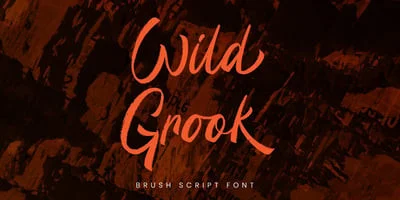
Wild Grook Font
Wild Grook Font is perfect for wilderness adventure branding, untamed nature documentaries, wild safari expedition marketing, primal outdoor gear advertising, savage beast-themed gaming interfaces, and raw survival challenge promotions. Its fierce character makes it ideal for extreme wilderness outfitters, wildlife photography studios, survival training schools, predator research organizations, and any application requiring untamed typography that conveys wild intensity, primal power, and the savage beauty of untouched wilderness environments.
Wild Grook Font is exciting because it unleashes the raw power and primal intensity of wild nature through aggressively crafted letterforms that capture the untamed ferocity and survival instincts found in Earth's most dangerous wilderness territories. Its savage proportions and beast-like details evoke the primitive strength required for wilderness survival and the respect-commanding presence of apex predators, making it perfect for brands seeking to convey authentic wildness and primal authenticity. The font's wild character transforms communications into territorial declarations of untamed dominance.
Wild Grook Font family includes wilderness-ready weight variations typically featuring Regular, Bold, and Black options with savage styling that maintains wild authenticity. The family often incorporates beast symbols, wilderness icons, and primal elements designed for extreme outdoor applications, providing designers with comprehensive tools for creating authentic, wild-focused typographic compositions.
When selecting wilderness survival typography solutions, Wild Grook Font represents an exceptional choice for extreme outdoor and wildlife projects. This fierce typeface brings instant wild authenticity to any design, making it invaluable for wilderness adventure companies, survival training organizations, and wildlife documentary producers celebrating untamed nature. Whether you're developing extreme wilderness expedition branding, creating survival gear marketing materials, or designing wild animal documentary graphics, Wild Grook Font provides the savage intensity and wild authenticity essential for commanding respect in today's extreme adventure wilderness marketplace.